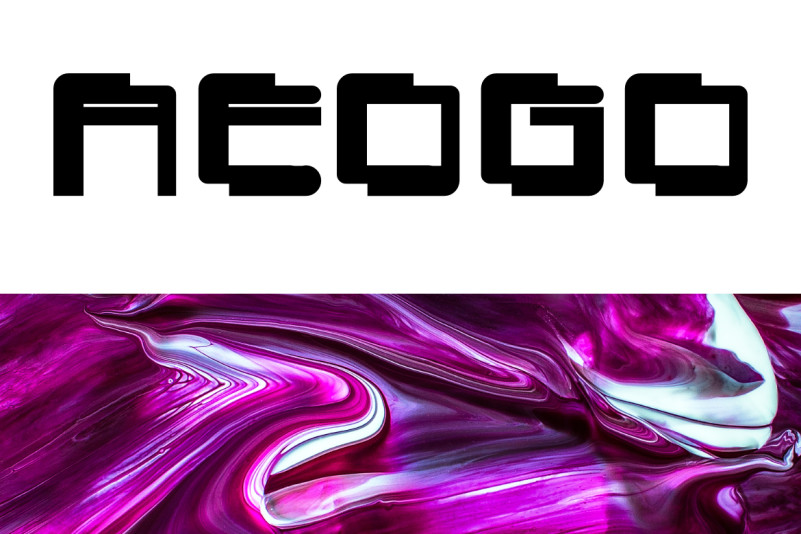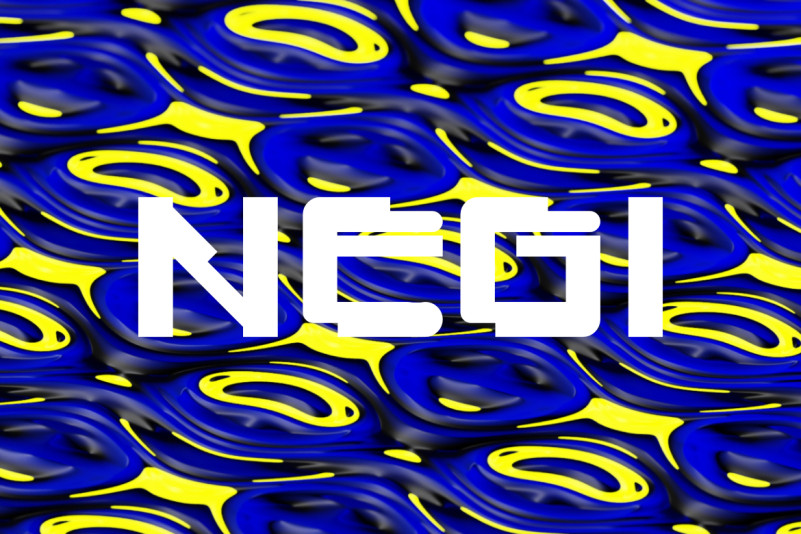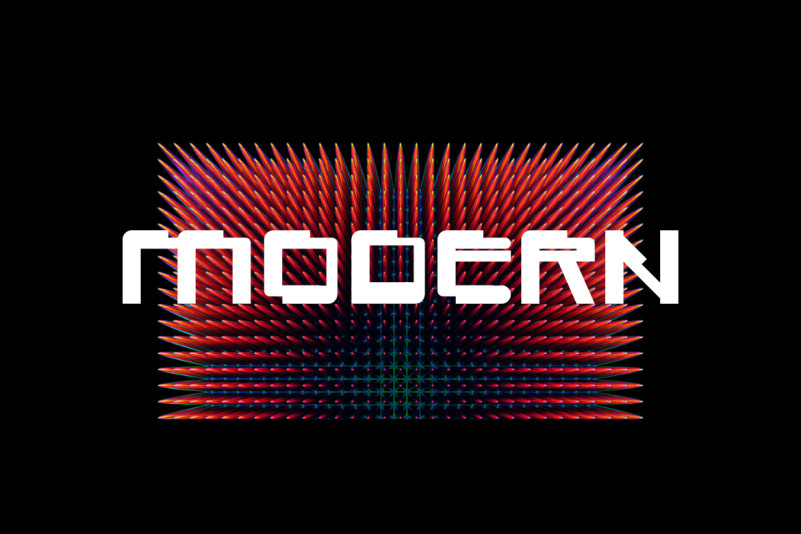
Aeogo Pro Font
Aeogo is a cool and casual display font. This font is suitable for designs such as t-shirts, sportswear, logos, advertisements, clothing, and more.
Aeogo it was inspired by a pixel, is a bold font with futuristic and also abstract character